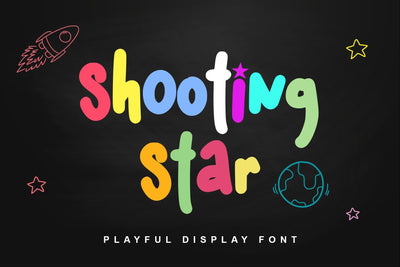
Shooting star
Shooting star is a cool and playful handwritten font. It is defined by smooth curves and is perfect for kids theme or cheerful designs. but also It’s ideal for book, packaging and logo projects. Add this lettered font to your designs and notice how it makes them come alive!. This font is PUA encoded which means you can access all of the cute glyphs with ease! It also features a wealth of including ligatures.